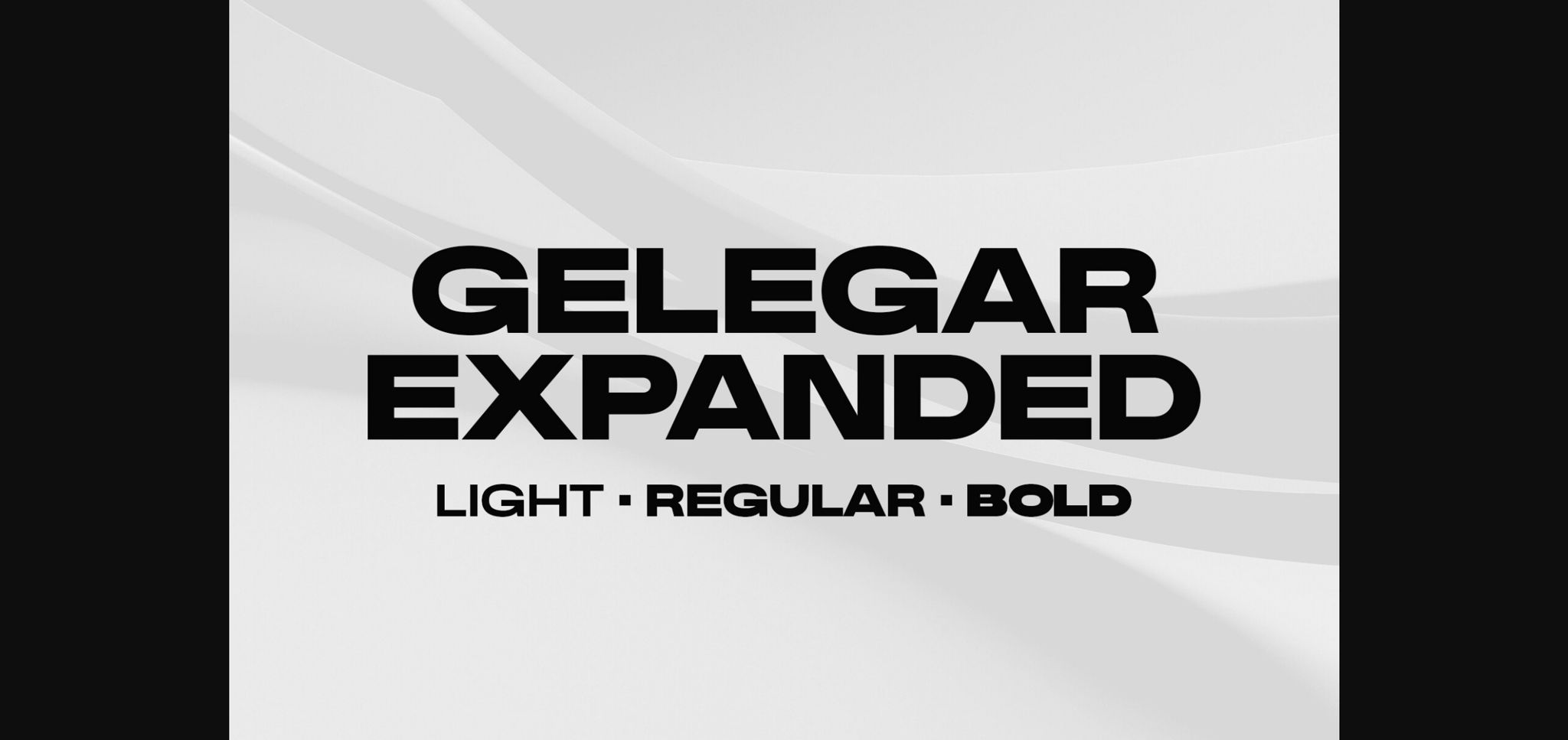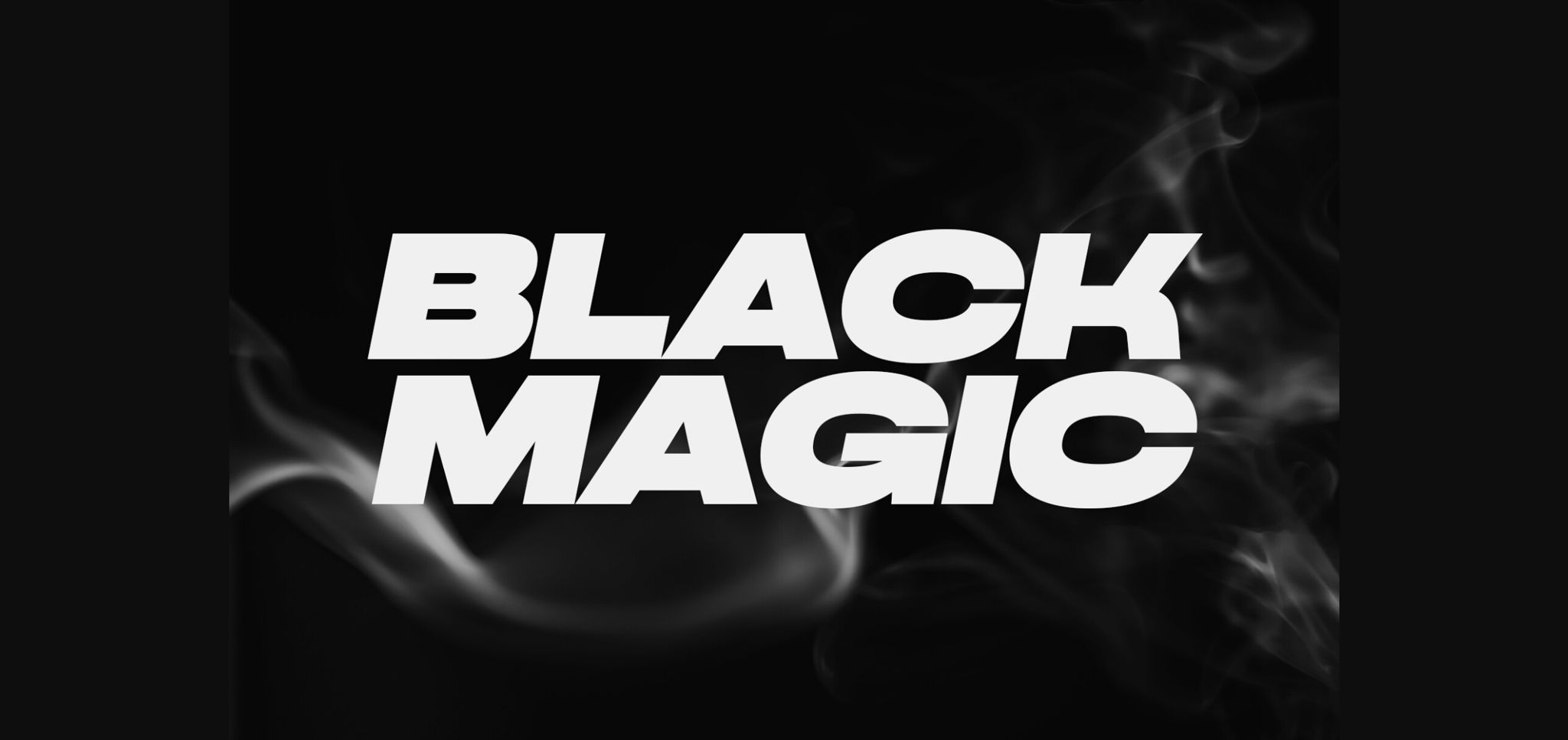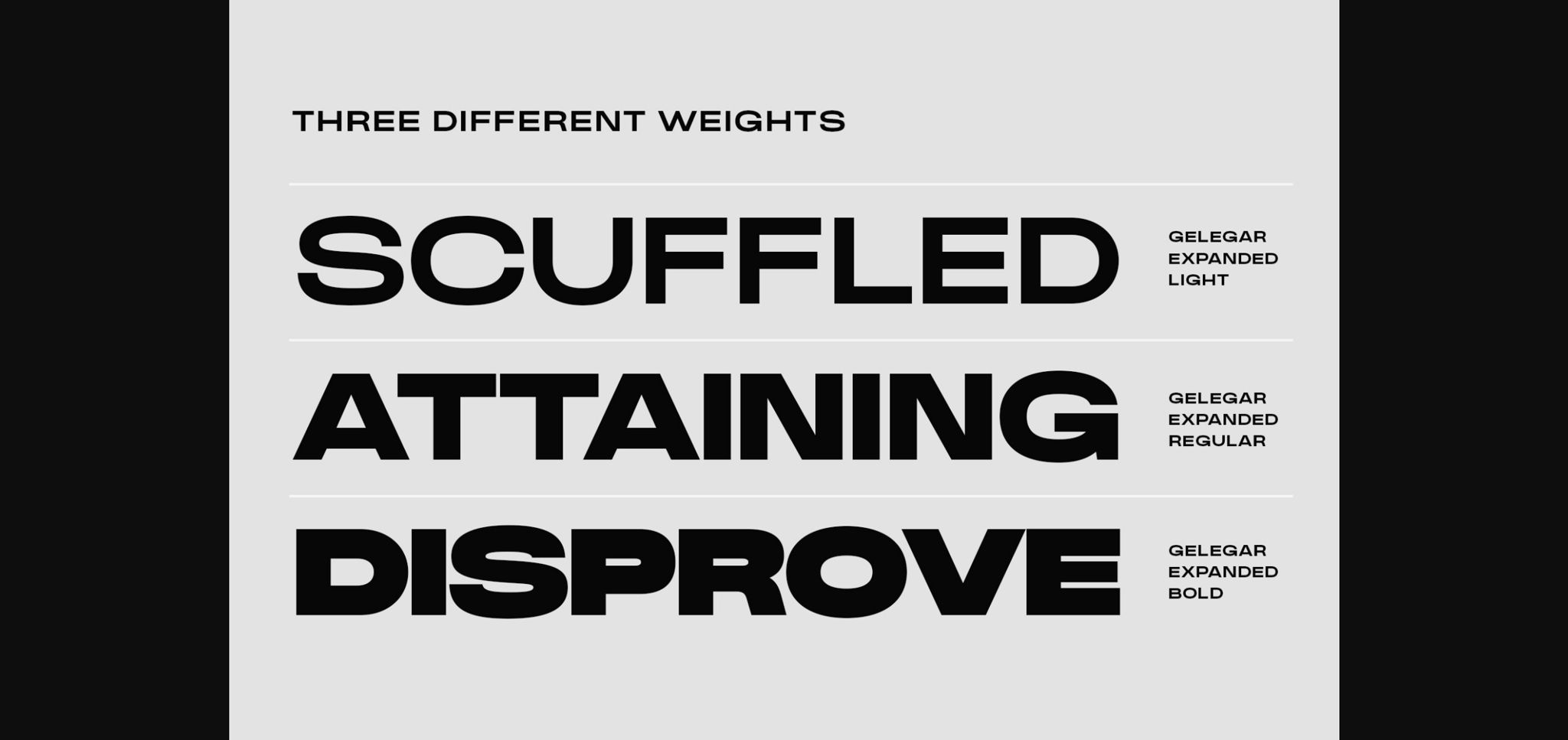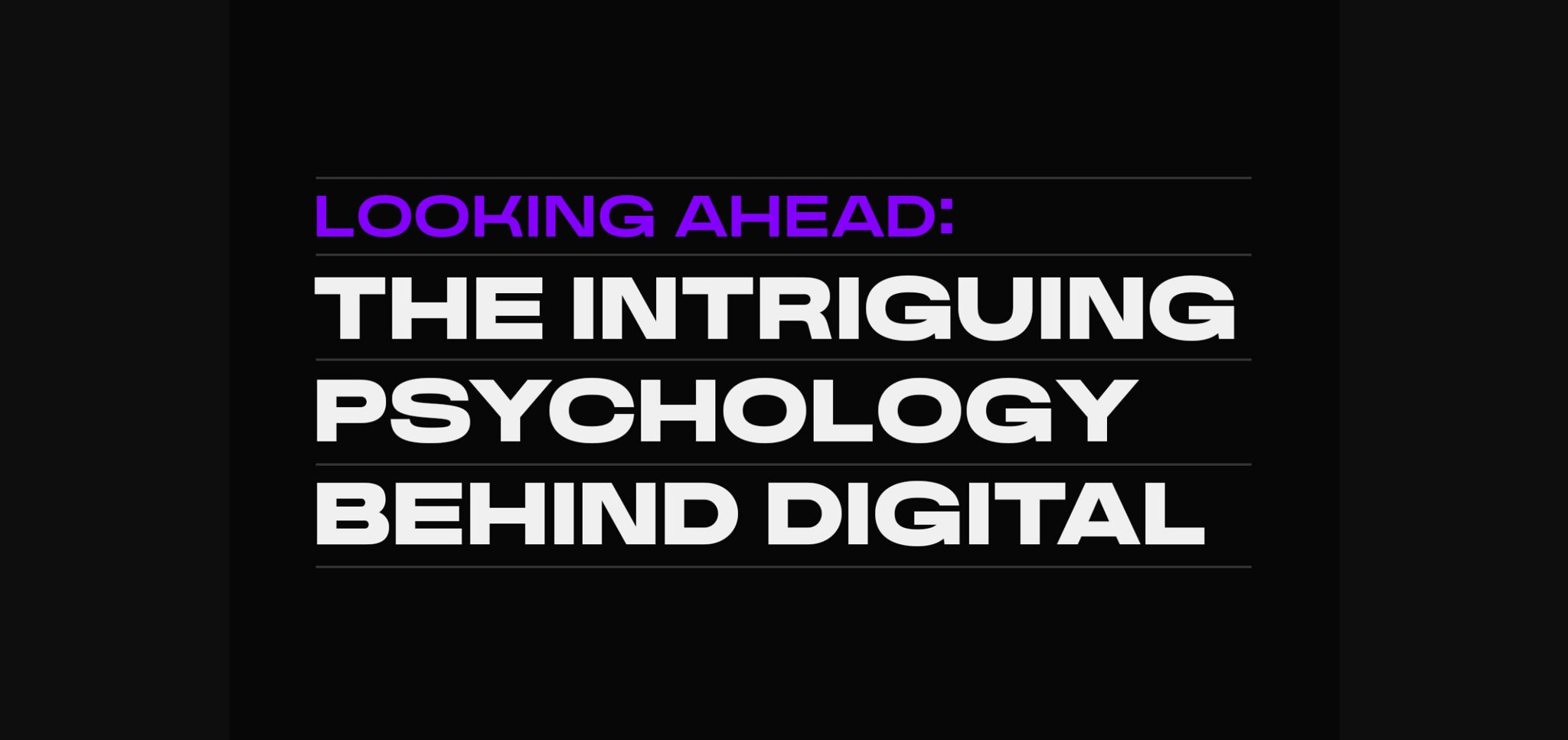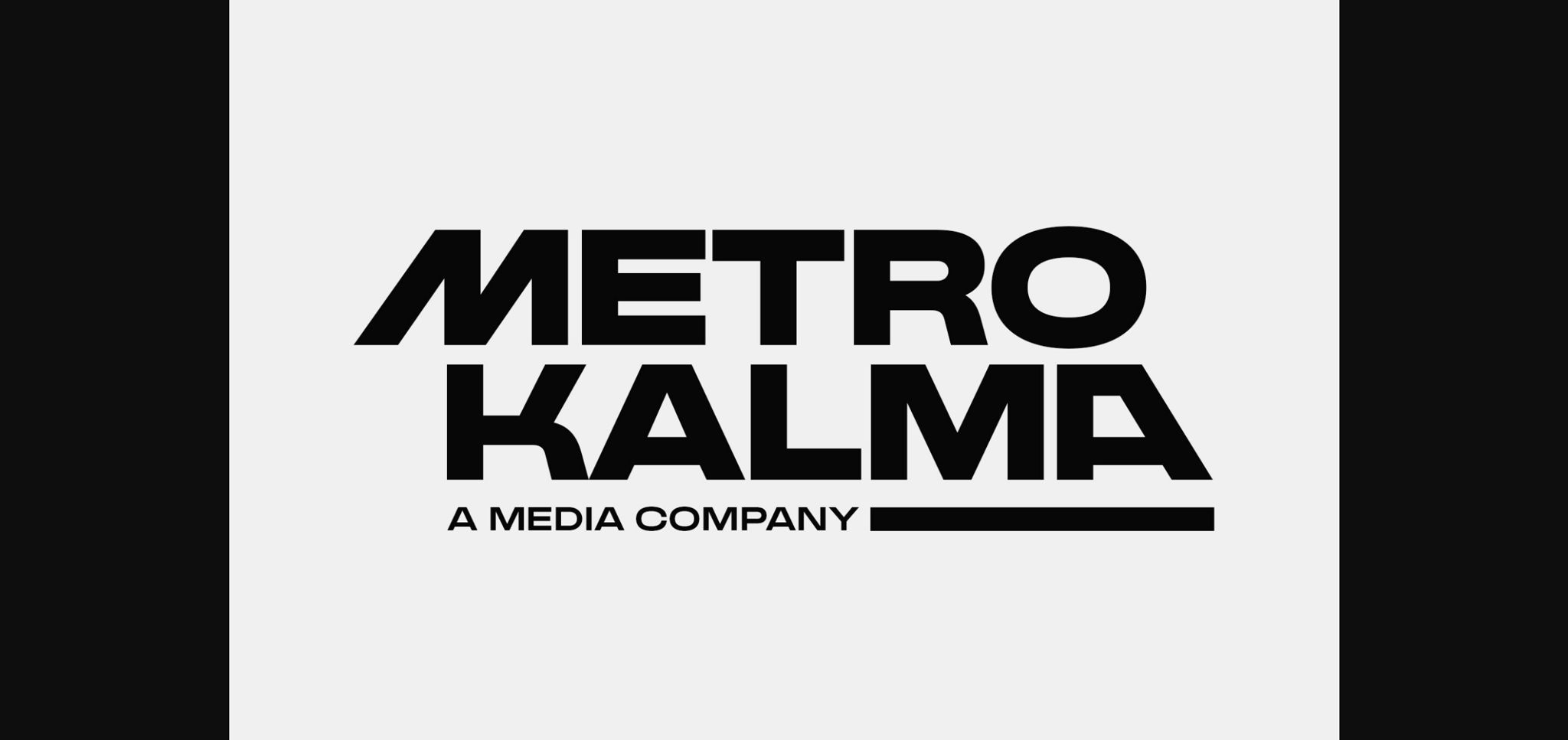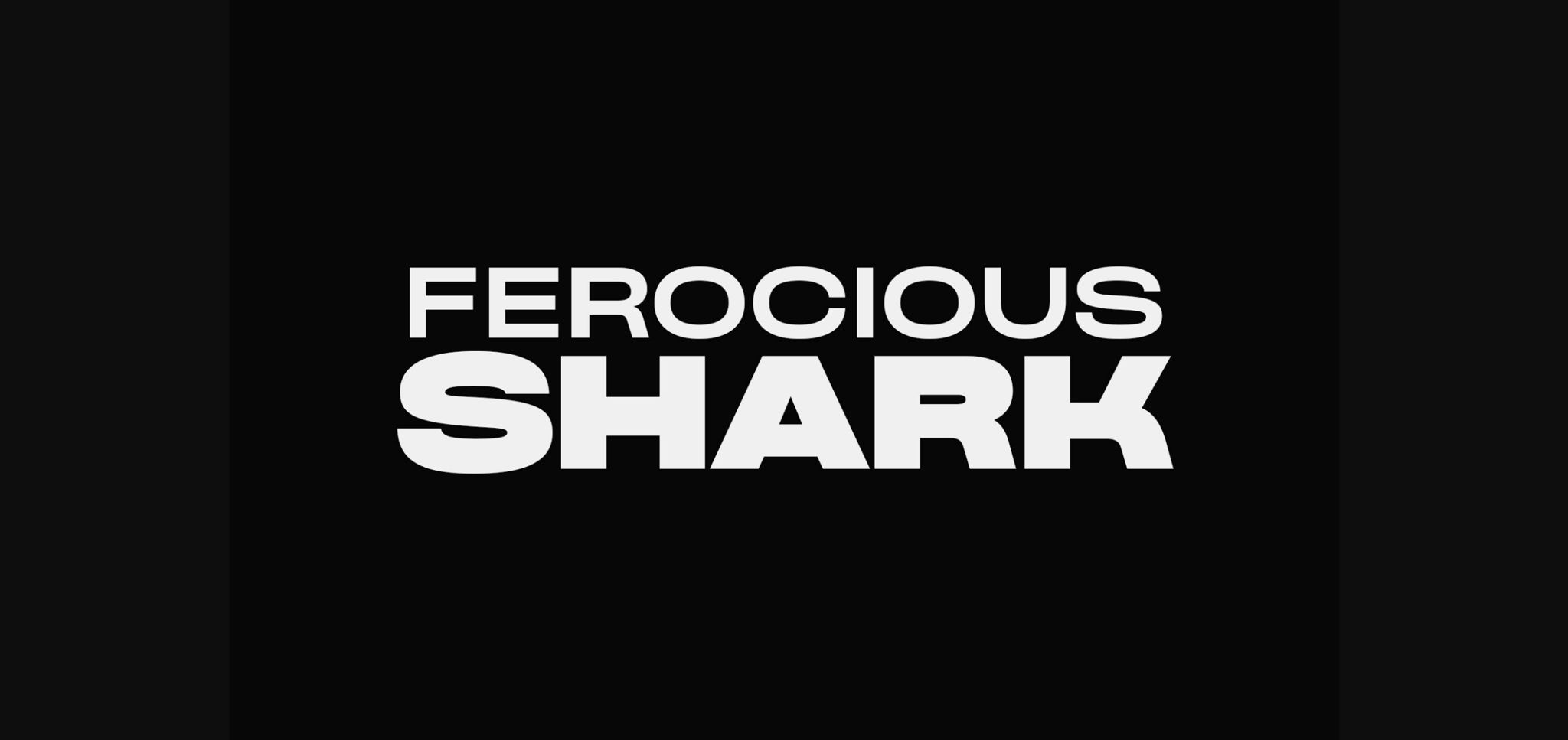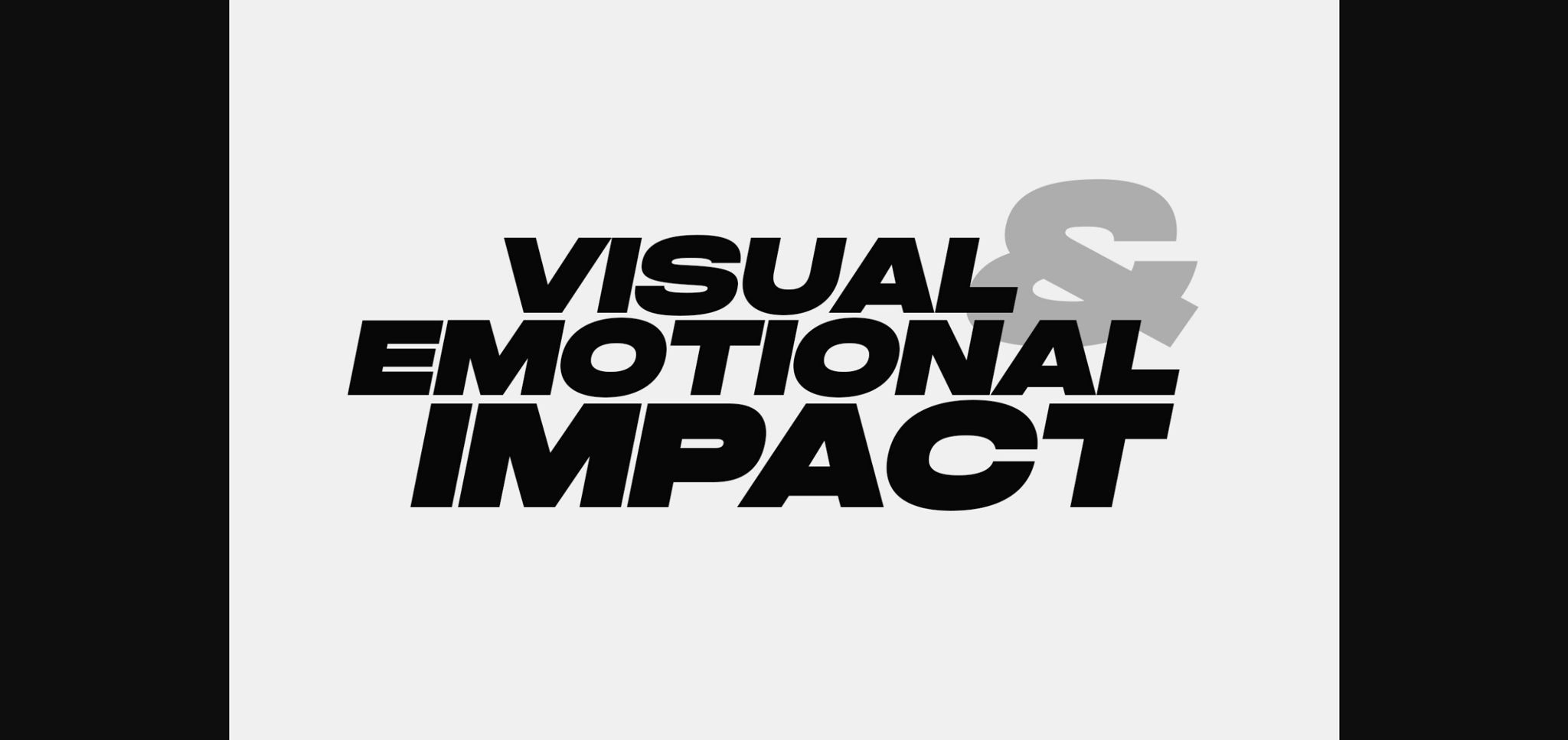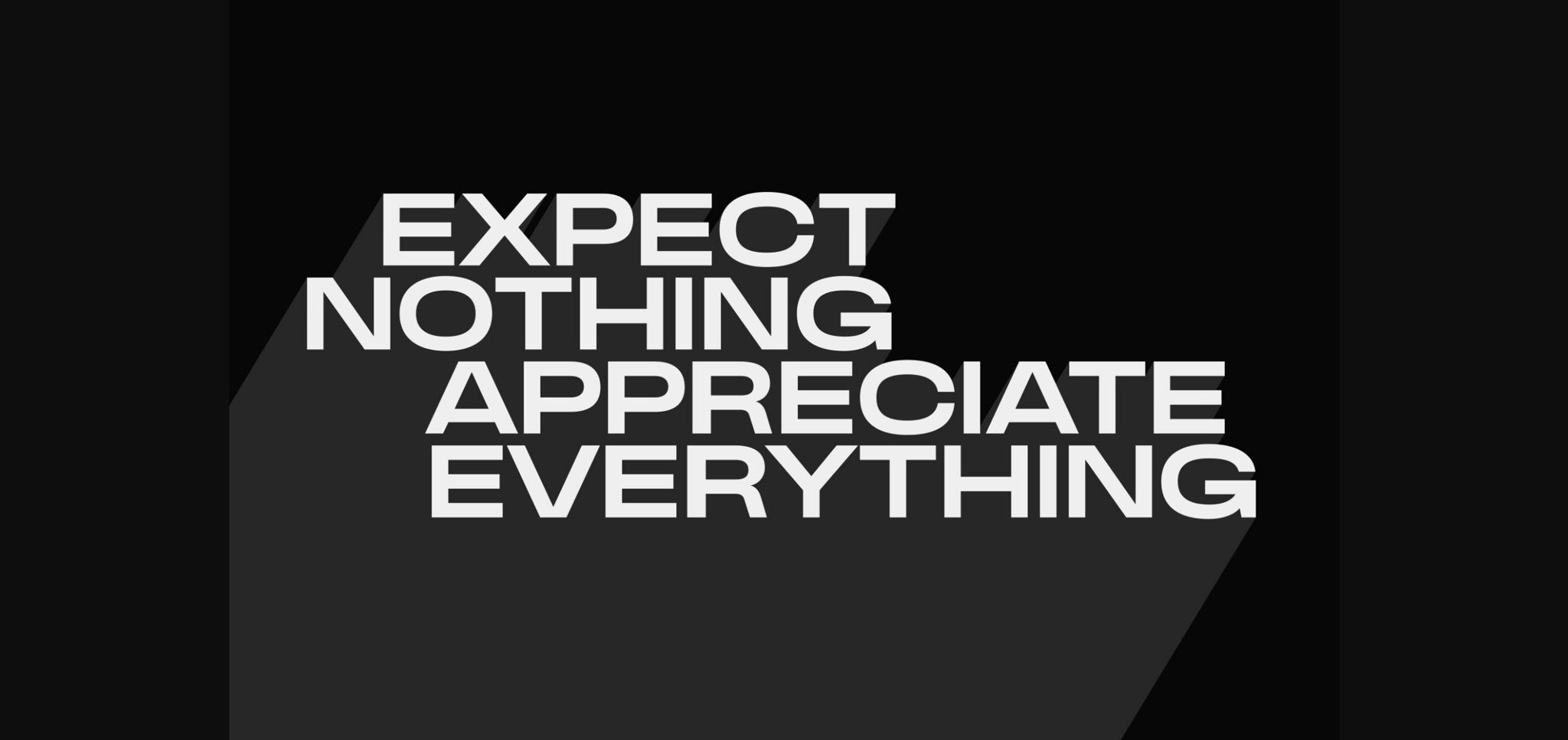
Gelegar Expanded Font
About Gelegar Expanded Font
Gelegar Expanded is an extraordinary ultra-wide display sans serif font, meticulously crafted for commanding visual and emotional impact. Whether you’re designing posters, social media posts, attention-grabbing headlines, monumental titling, or large-format prints, Gelegar ensures your projects stand out from the crowd.